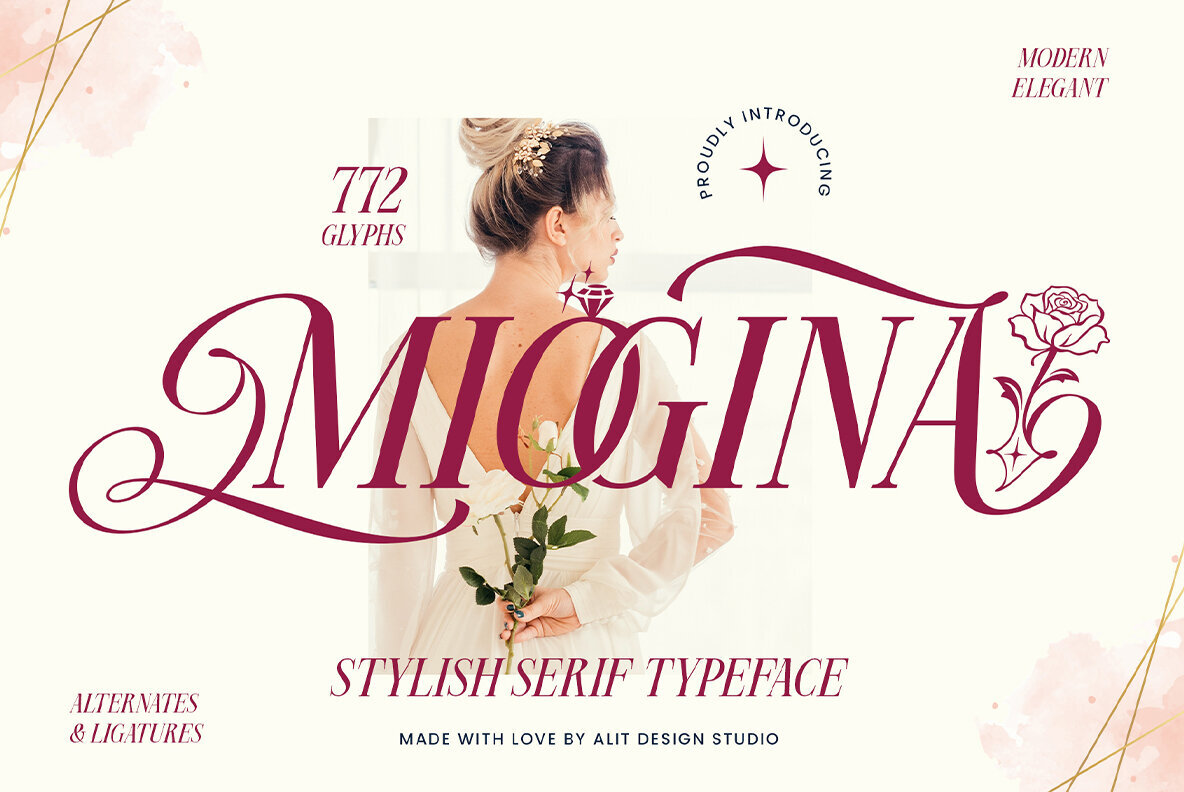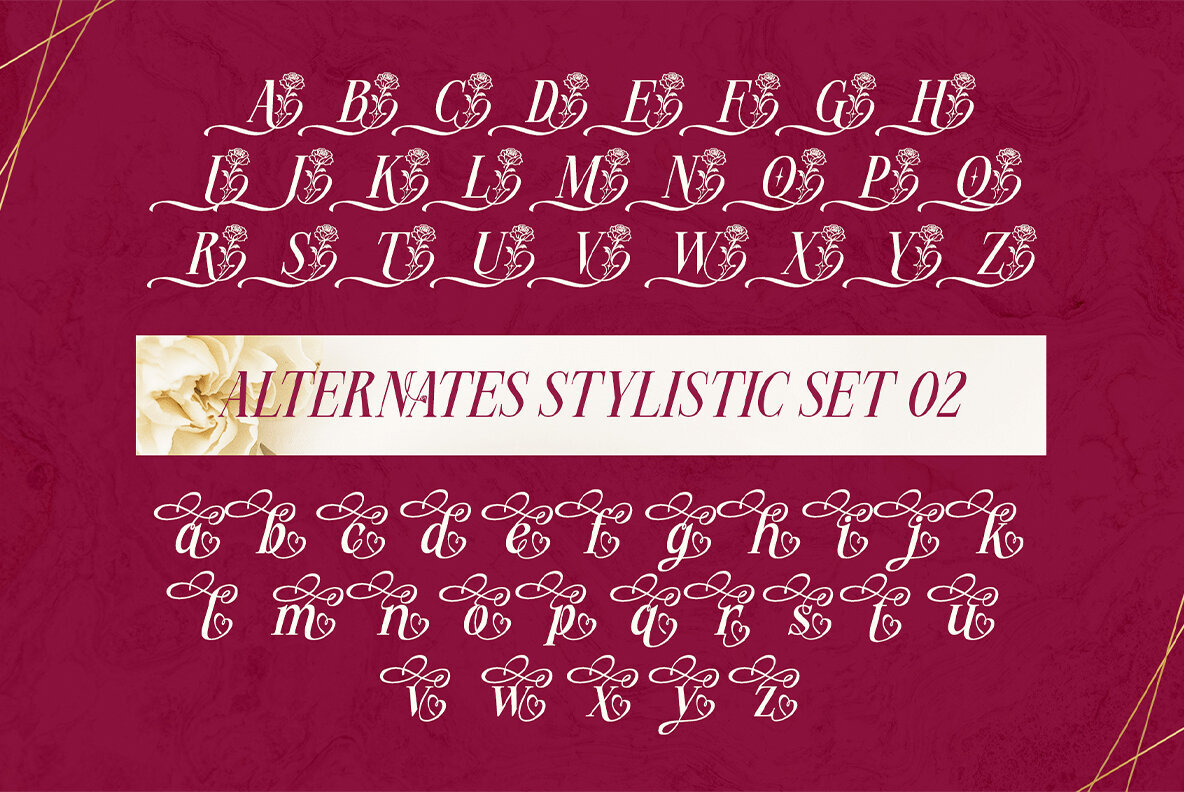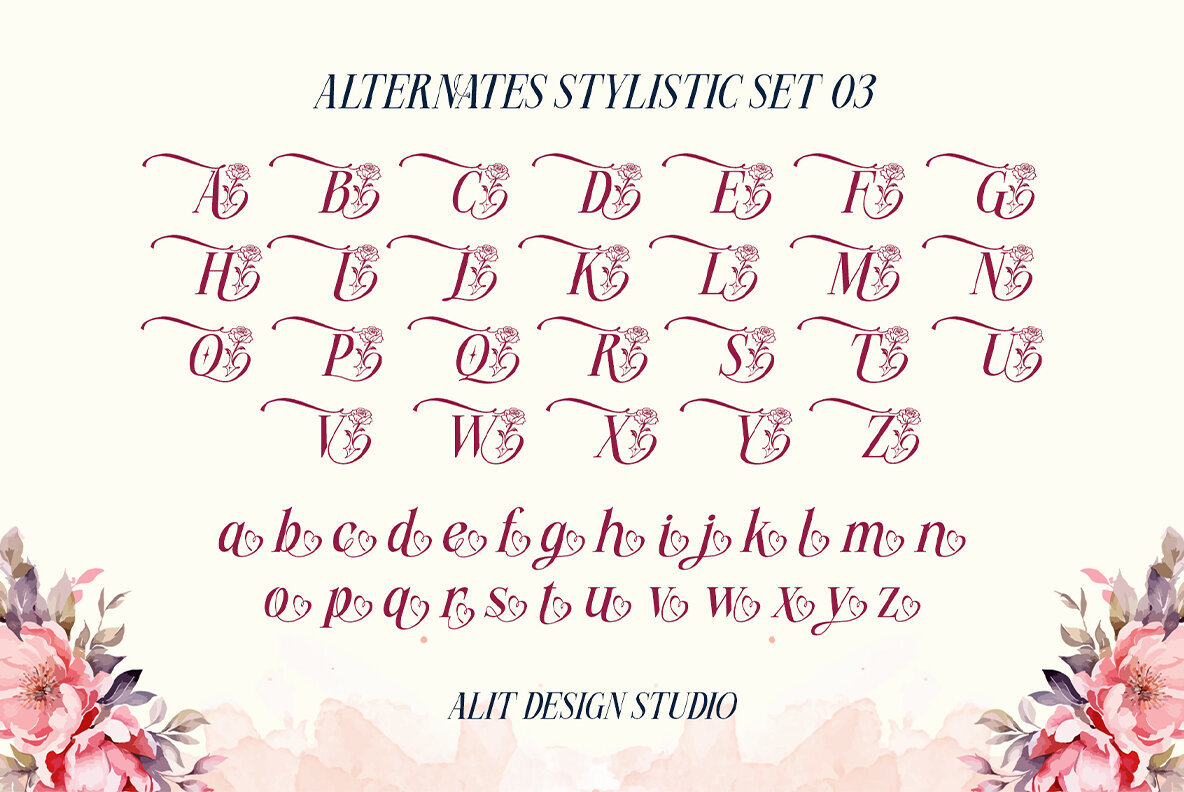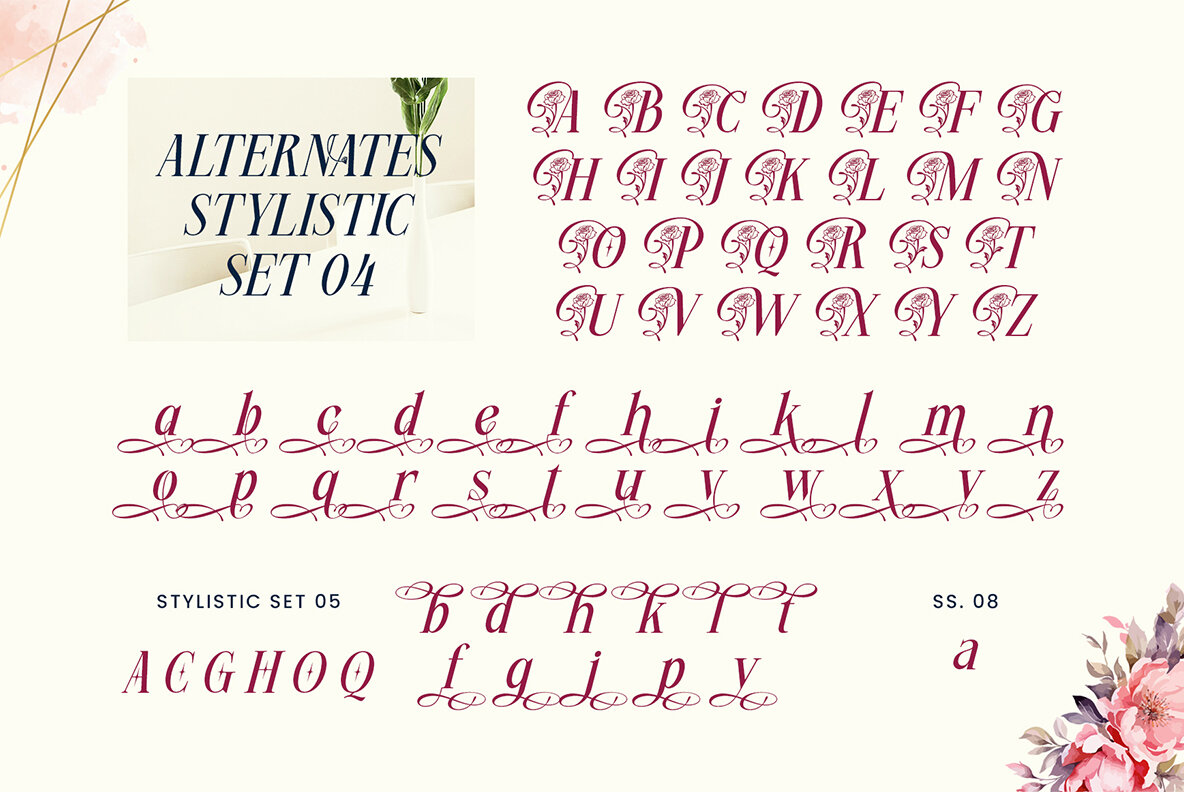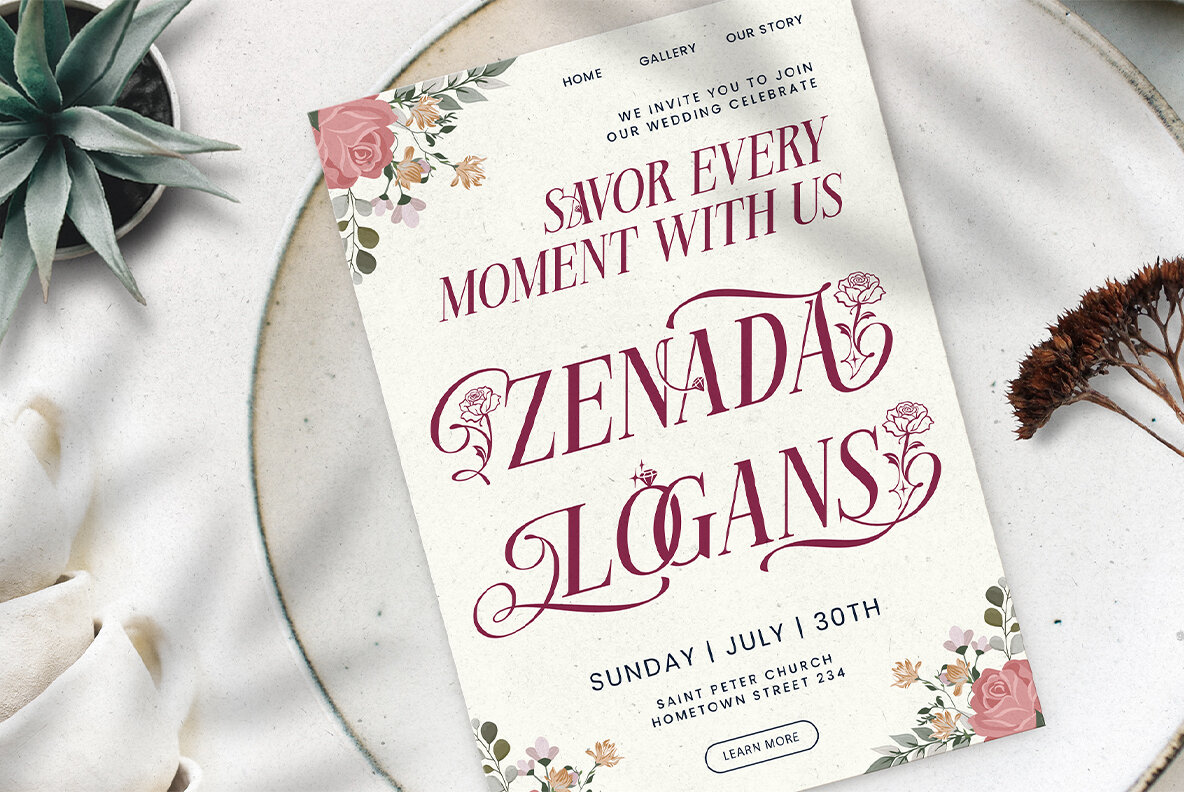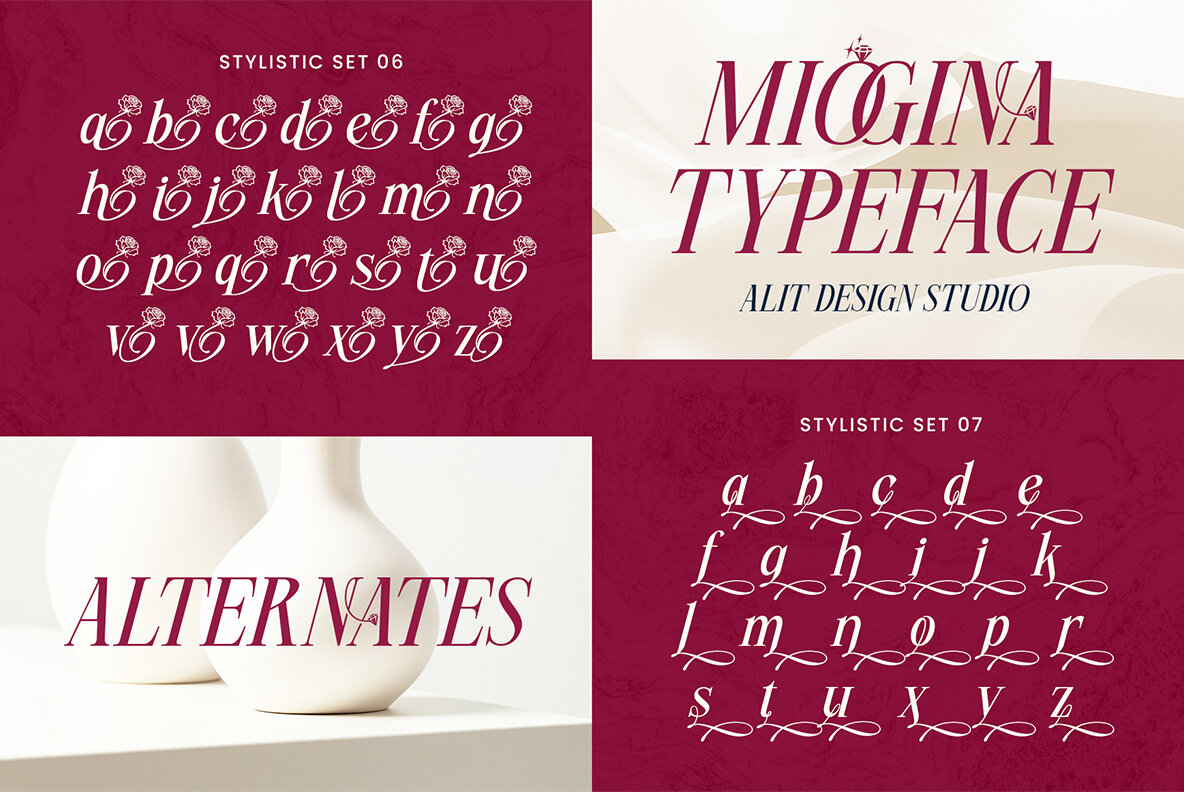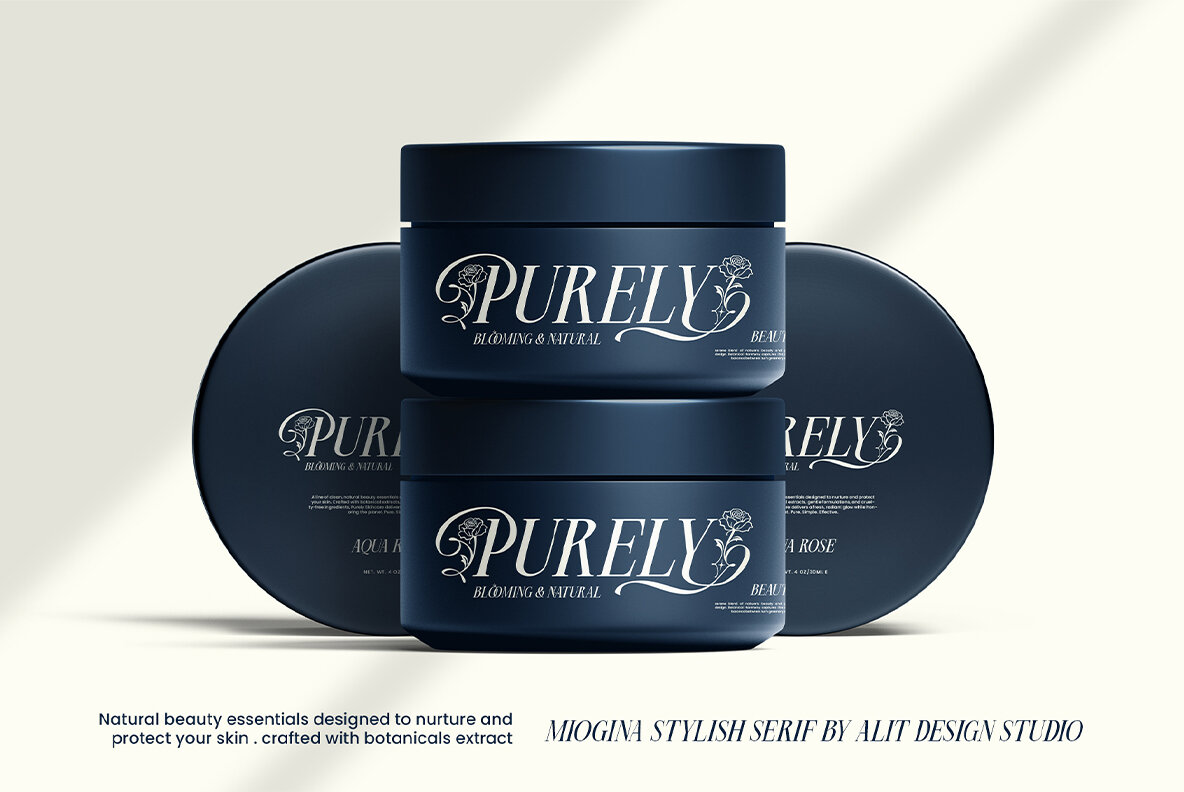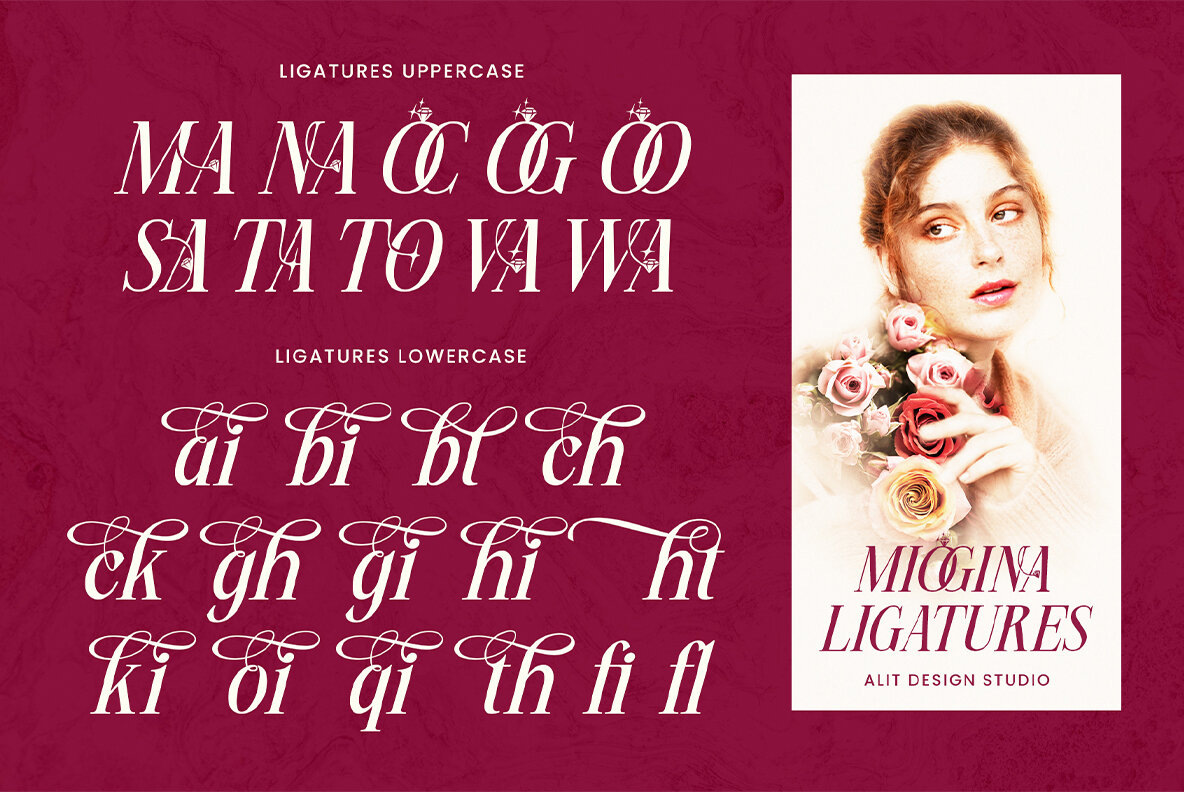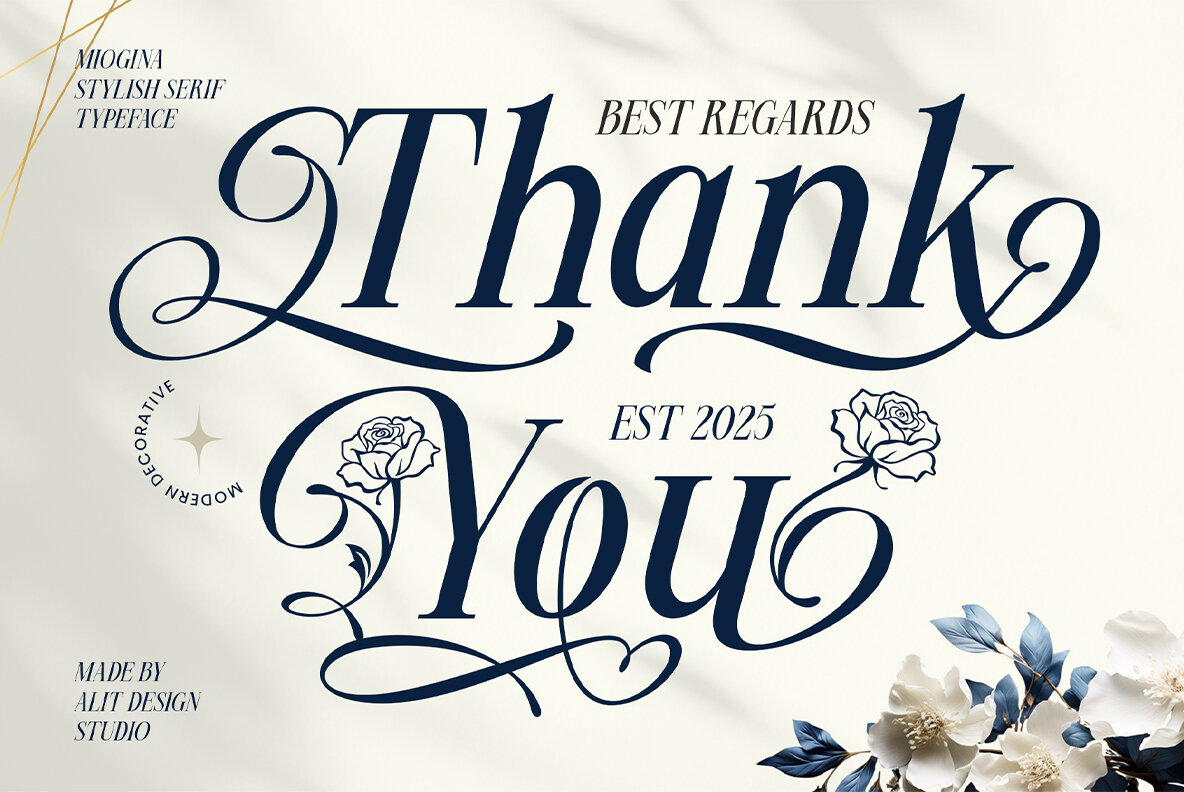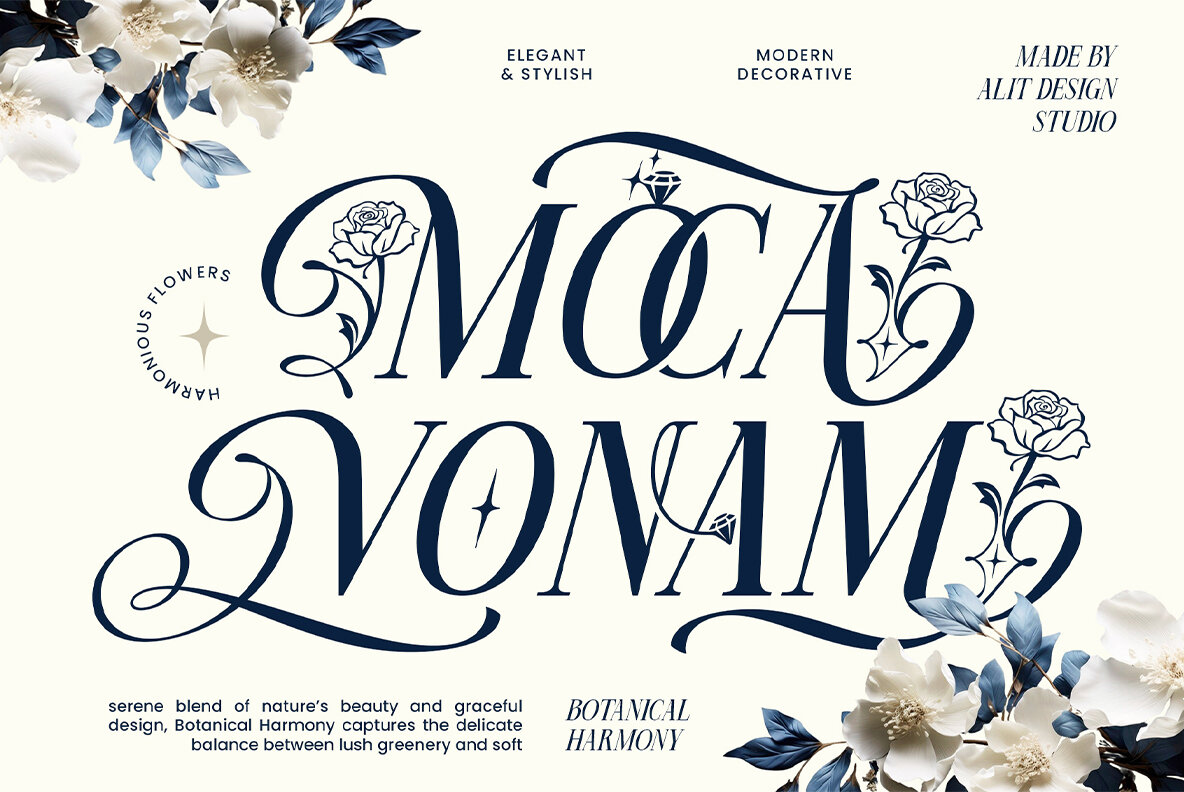
Miogina Font
Miogina Regular
Miogina Typeface elegantly combines contemporary serif design with artful swashes, creating a versatile tool for designers seeking sophistication. Its thoughtful detail offers a luxurious touch to projects, balancing professional clarity with a hint of romance. The Miogina Typeface enriches your creative projects with its graceful allure, offering an investment in elegance and design sophistication.Miogina Typeface: Modern Serif with Swash Artistry